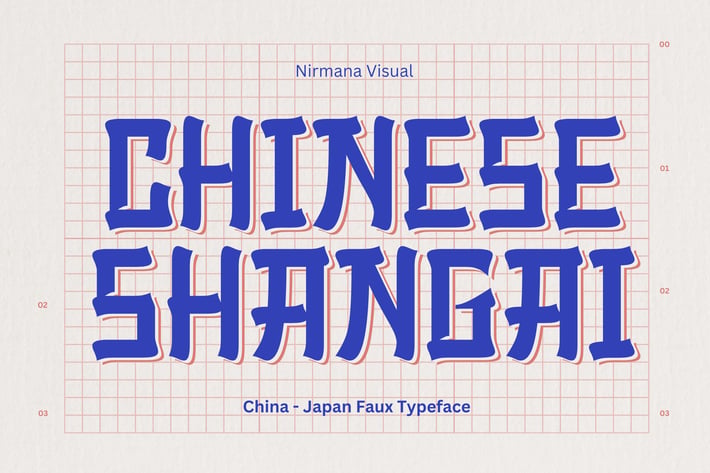
Chinese Shangai - Asian Font
Chinese Shangai, Inspired by China & Japan Calligraphy. perfect for logos & branding, social media posts, advertisements & product designs.